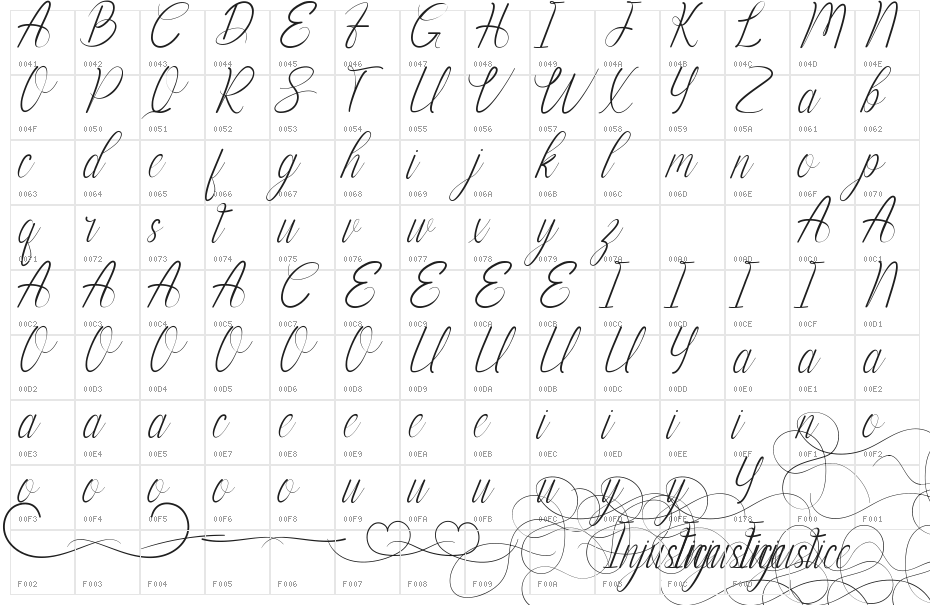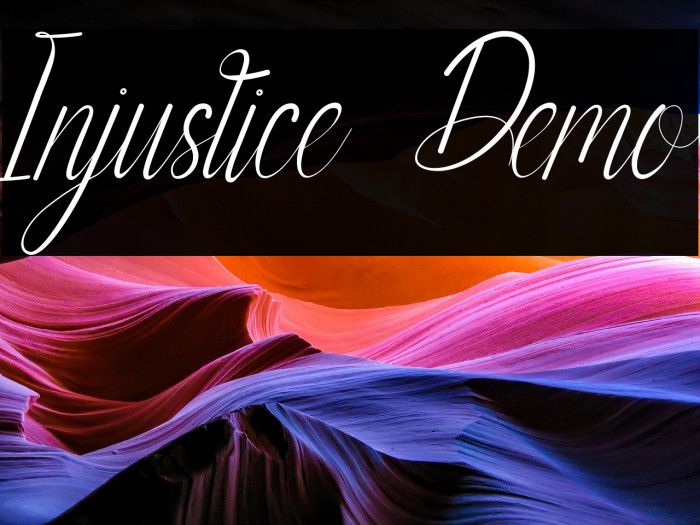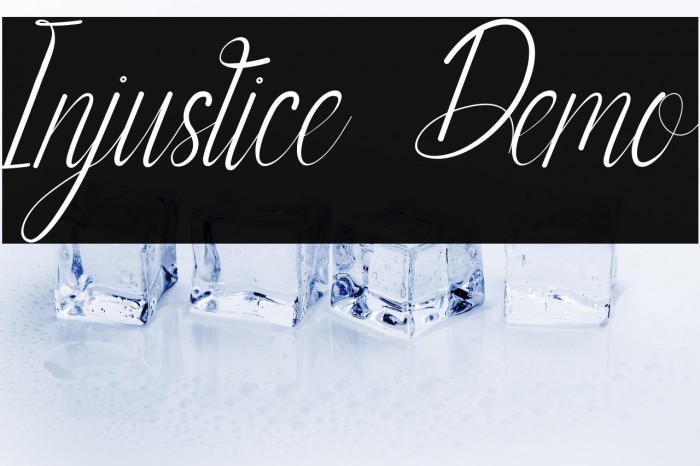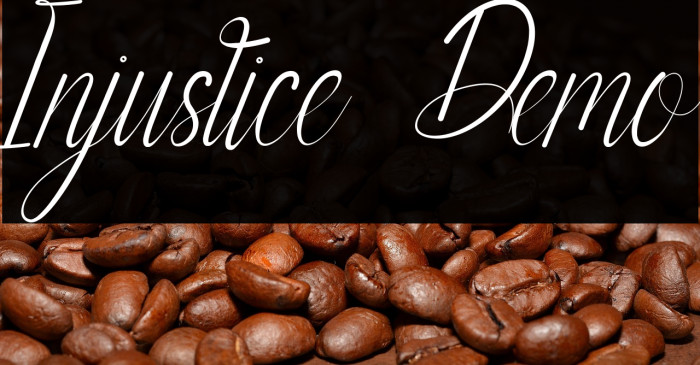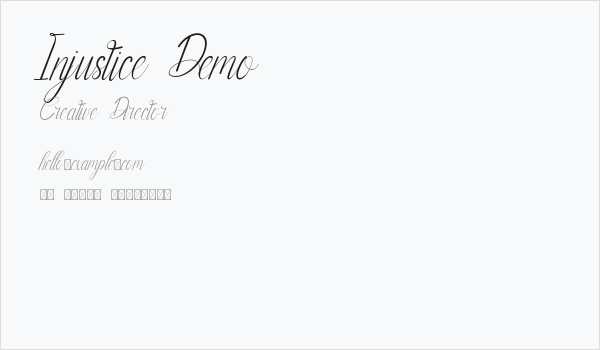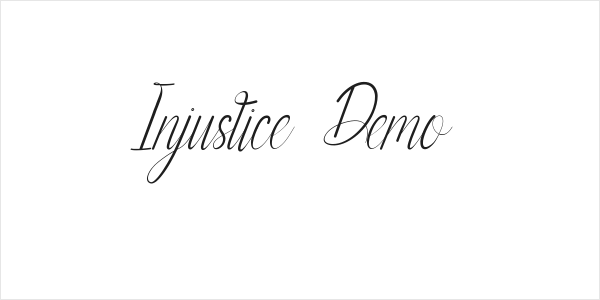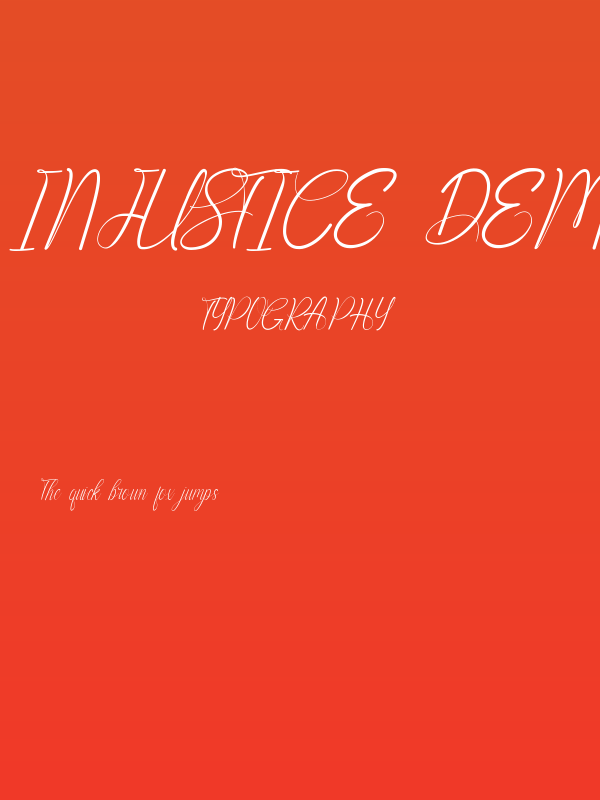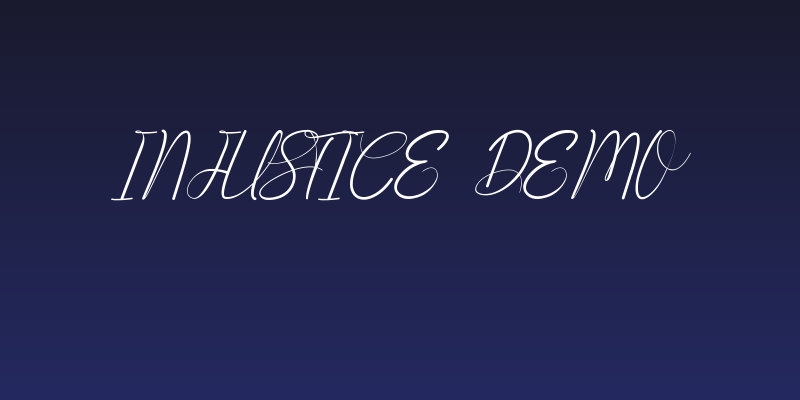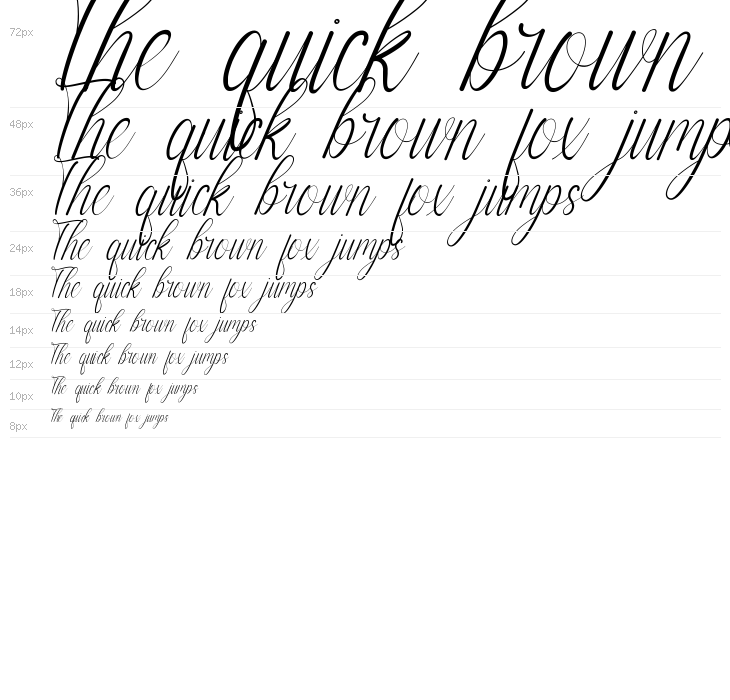
Injustice Demo Font
Injustice Demo Description
This elegant script font features flowing, interconnected letters with a refined and sophisticated appearance. The uppercase letters are tall and graceful, with delicate loops and swashes that add a touch of flair. The lowercase letters maintain a consistent style, with smooth curves and a slight slant that enhances readability. The font's overall design is reminiscent of classic calligraphy, making it ideal for formal invitations, branding, and decorative purposes. The absence of special characters and numbers suggests a focus on alphabetic text, emphasizing its use in artistic and ornamental contexts.
| Use Case | Headlines, Decorative text |
| Proposed Projects | Ideal for wedding invitations, luxury branding, and decorative headings. |